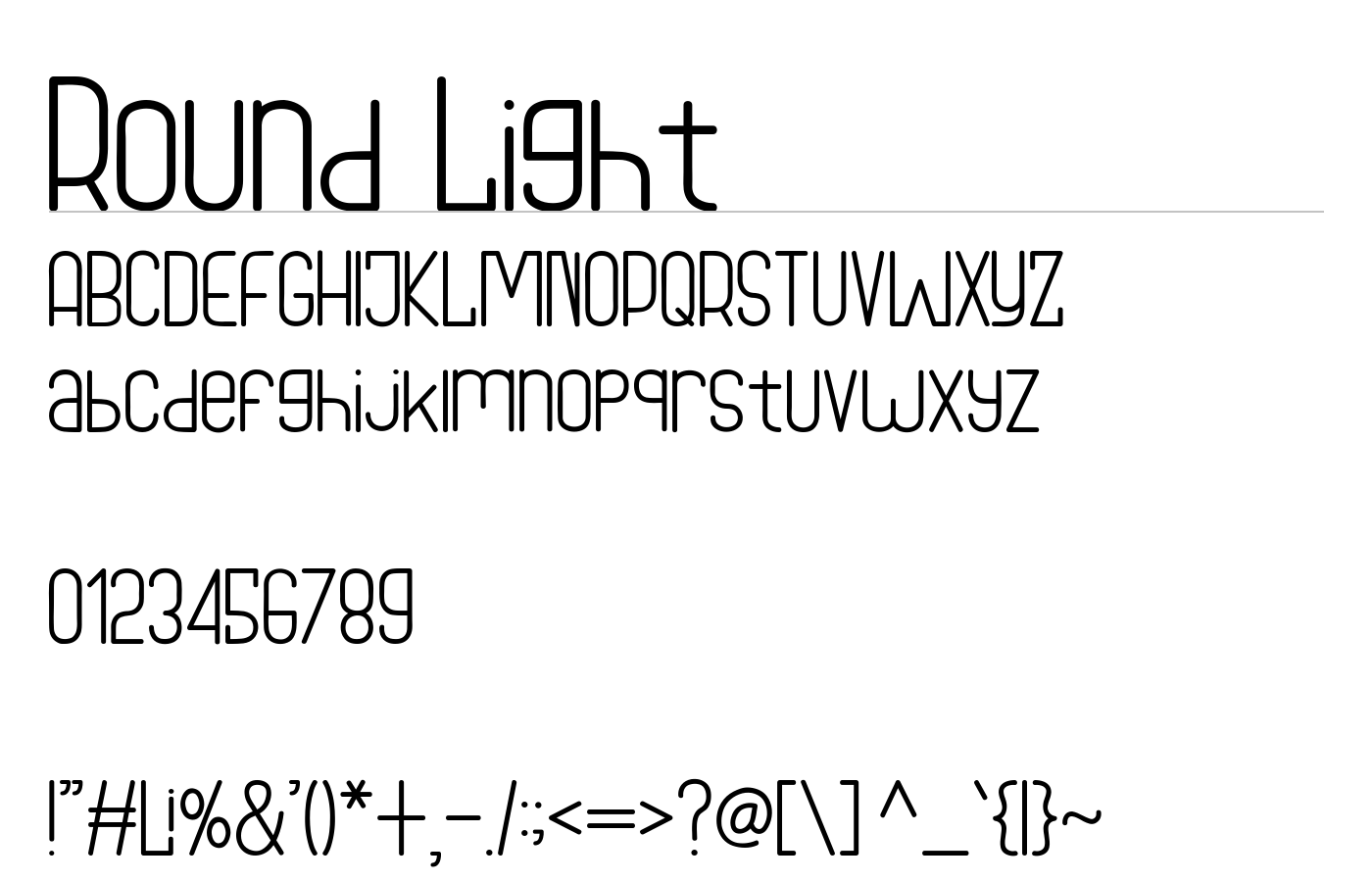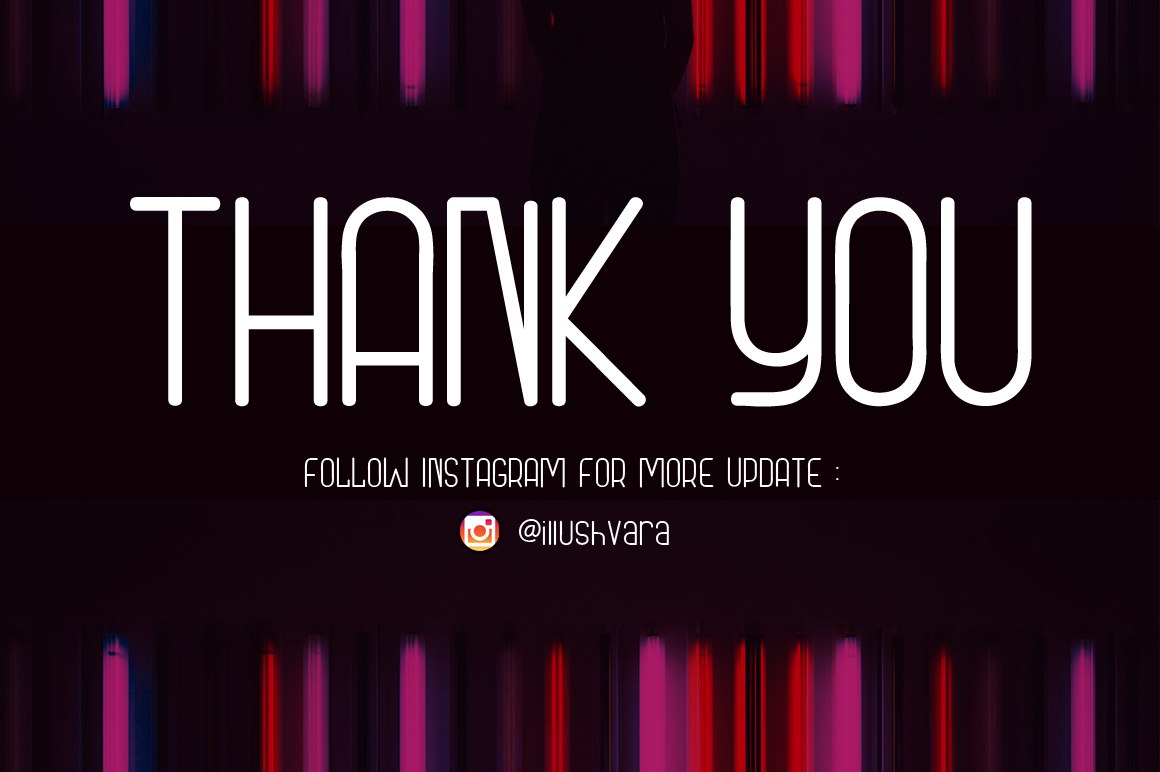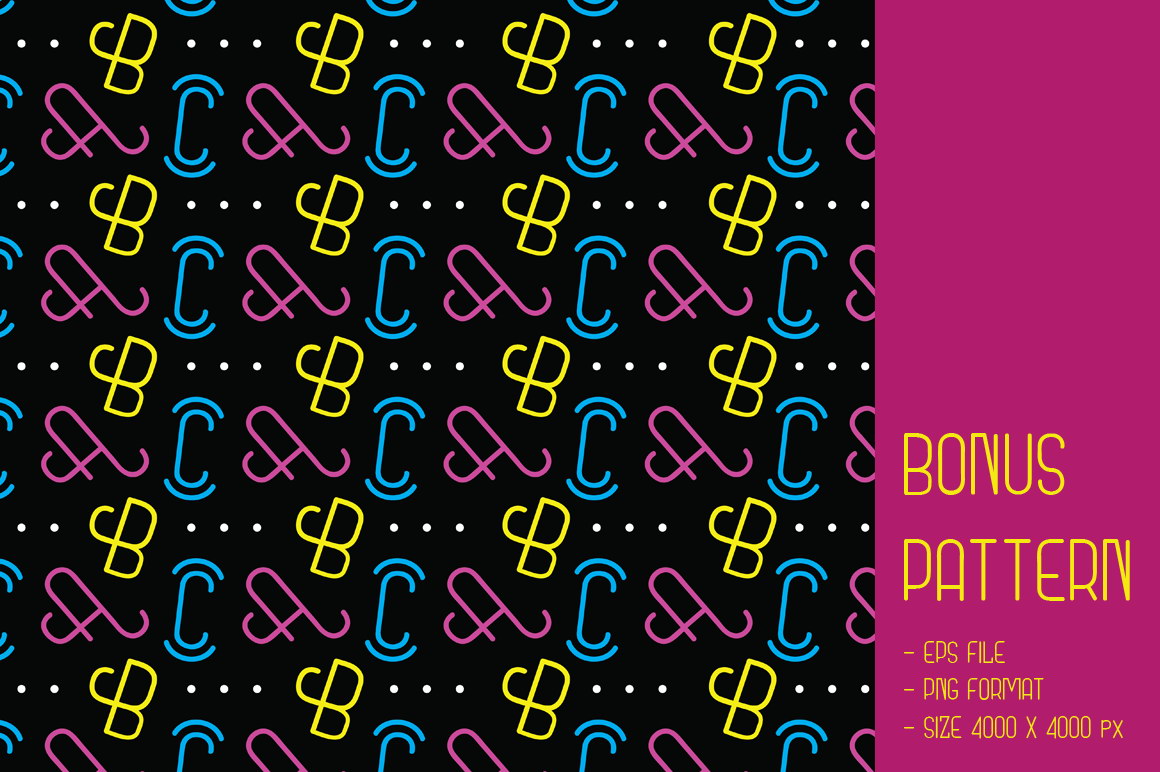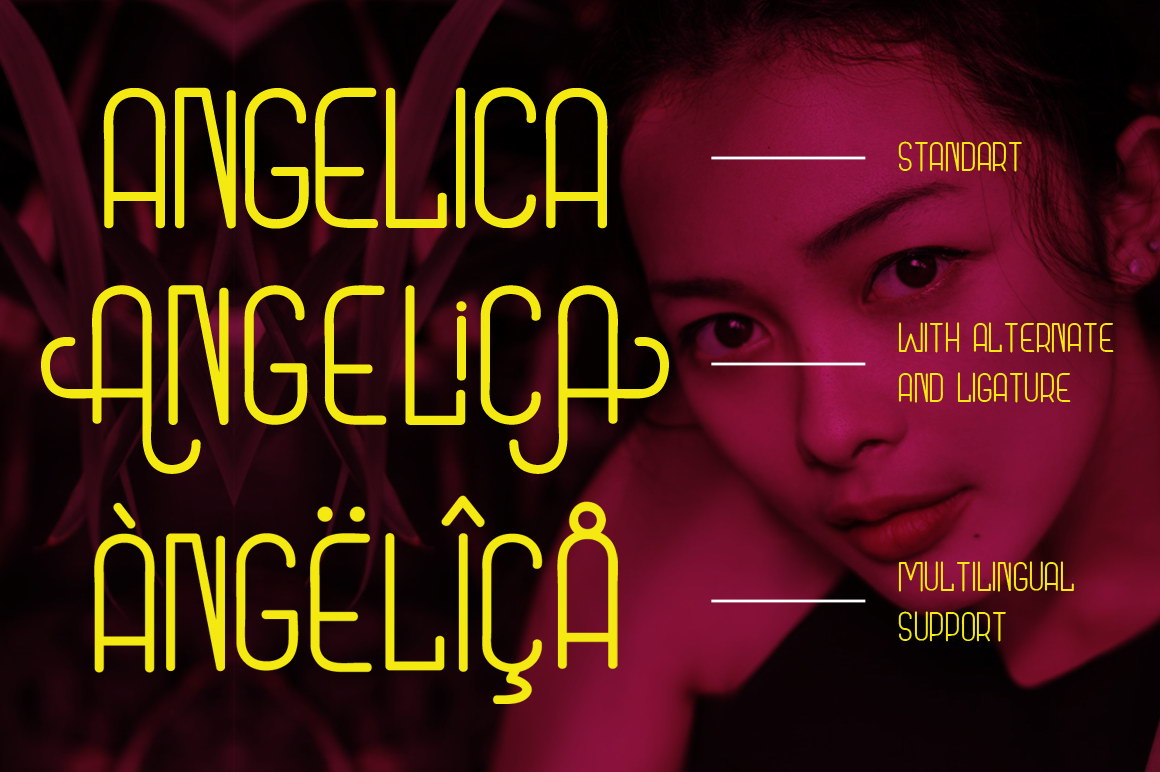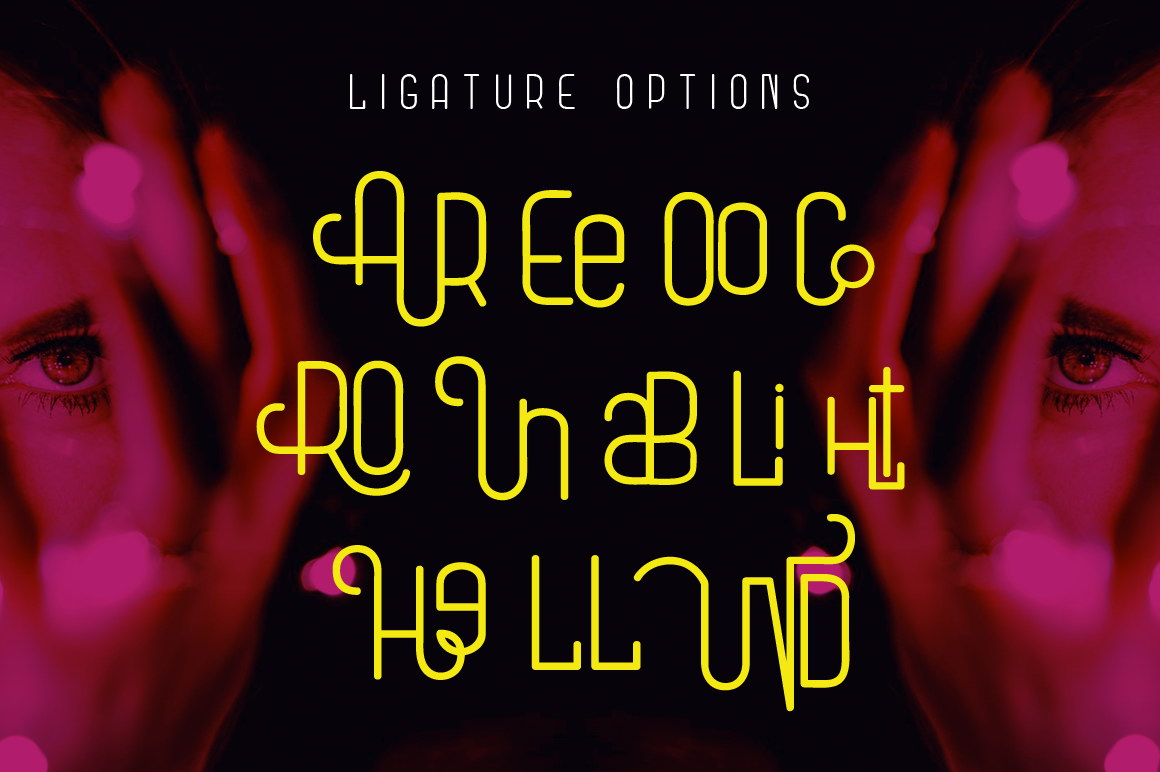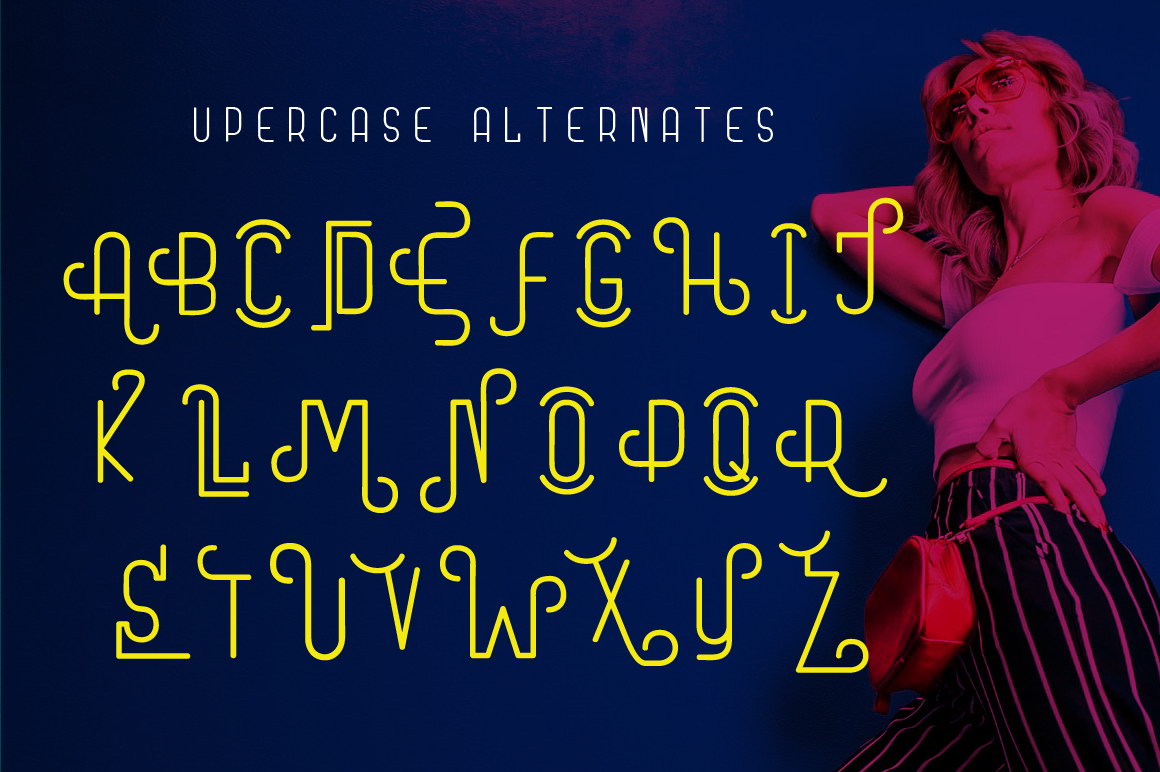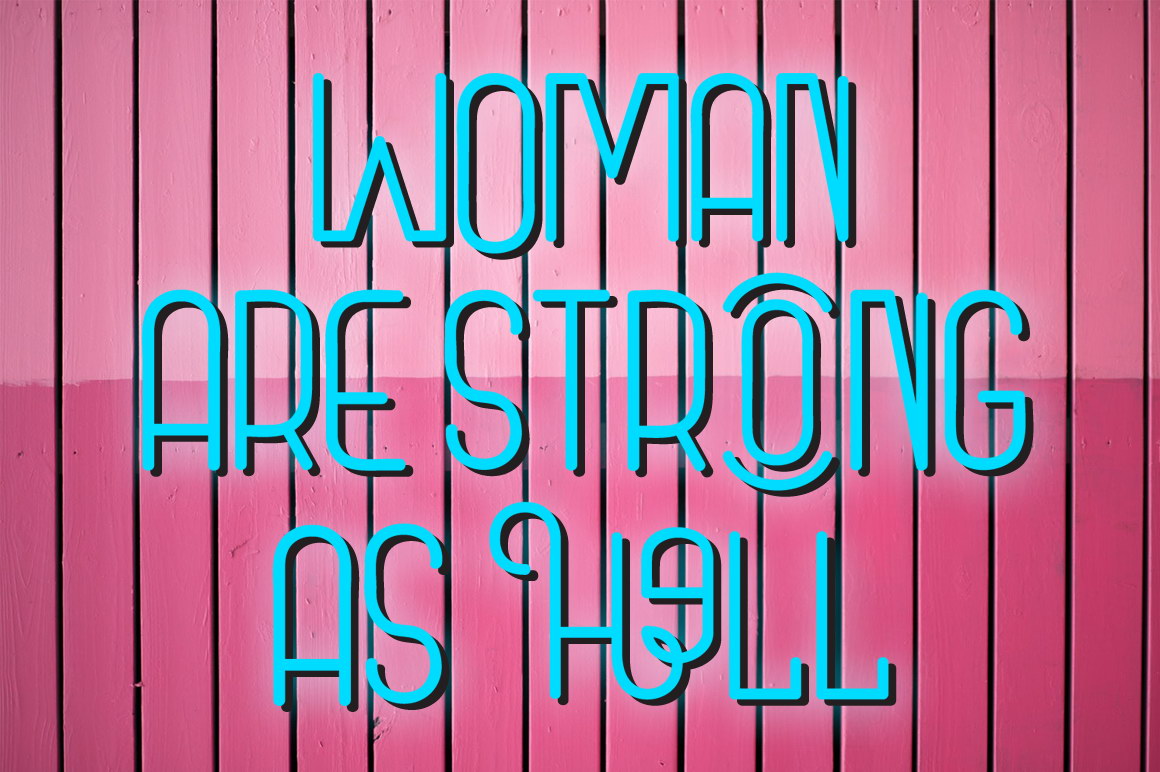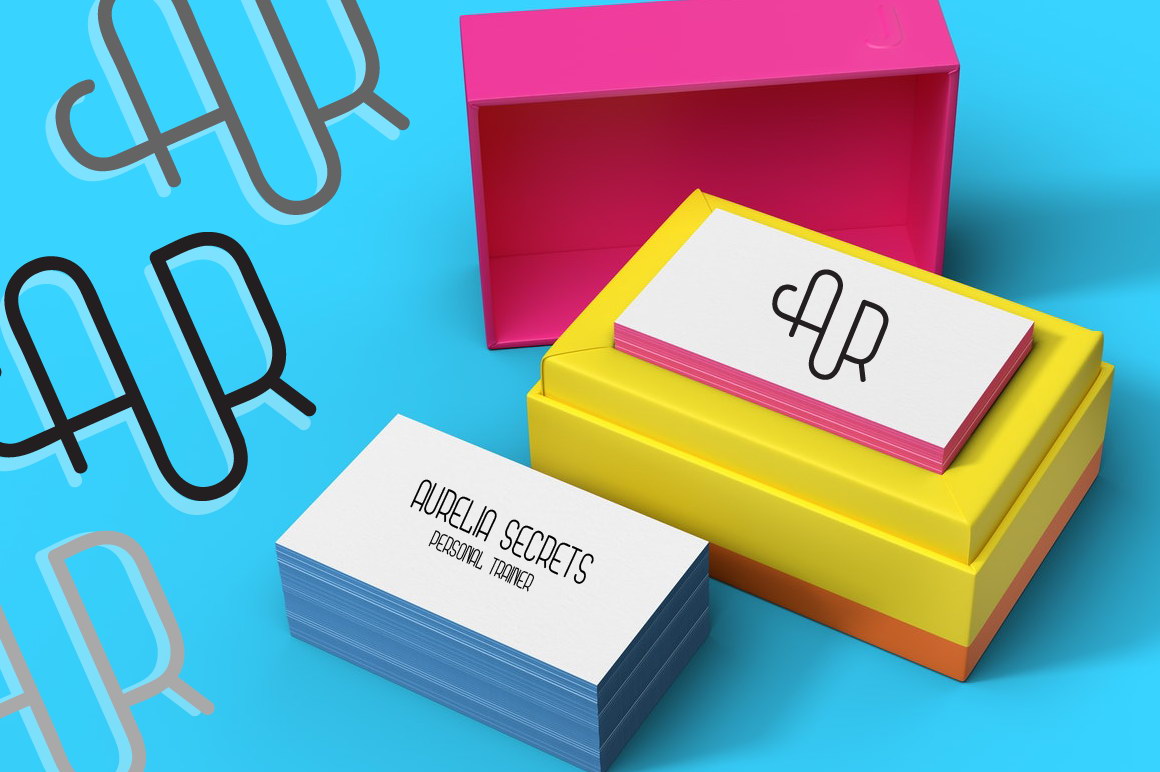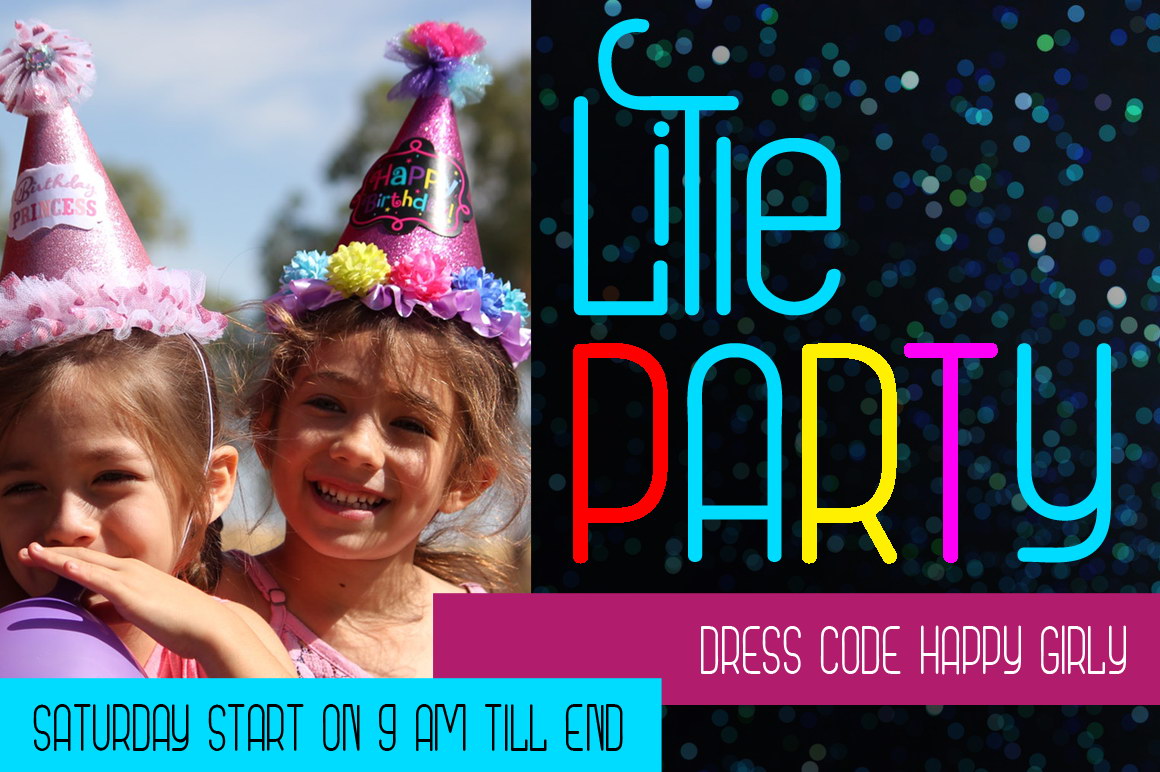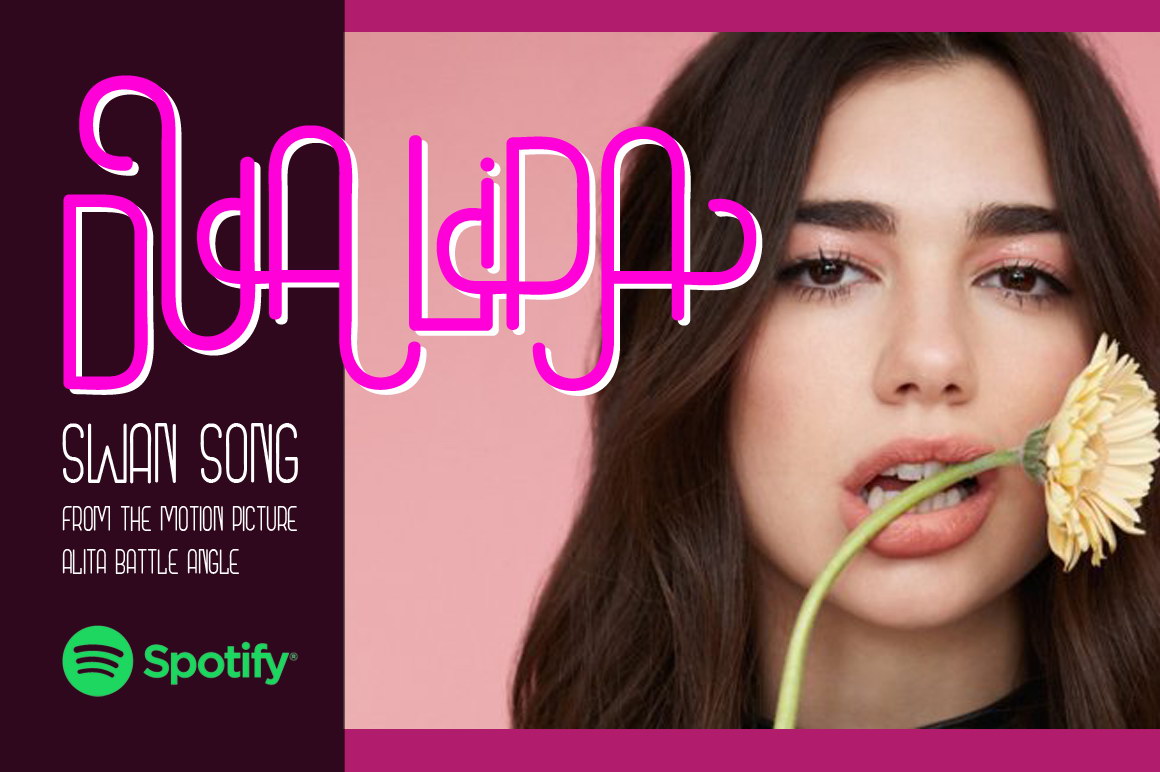
Round Light is a thin, sans serif typeface with a modern and minimalist design characterized by its tall, narrow letterforms and smooth, rounded terminals. Its light weight and consistent stroke width give it an elegant yet approachable feel, making it ideal for clean, contemporary branding, editorial headlines, and digital interfaces where readability and style are both important. This font works well in designs that require a sleek, airy look with a touch of warmth and friendliness.
Round Light Font